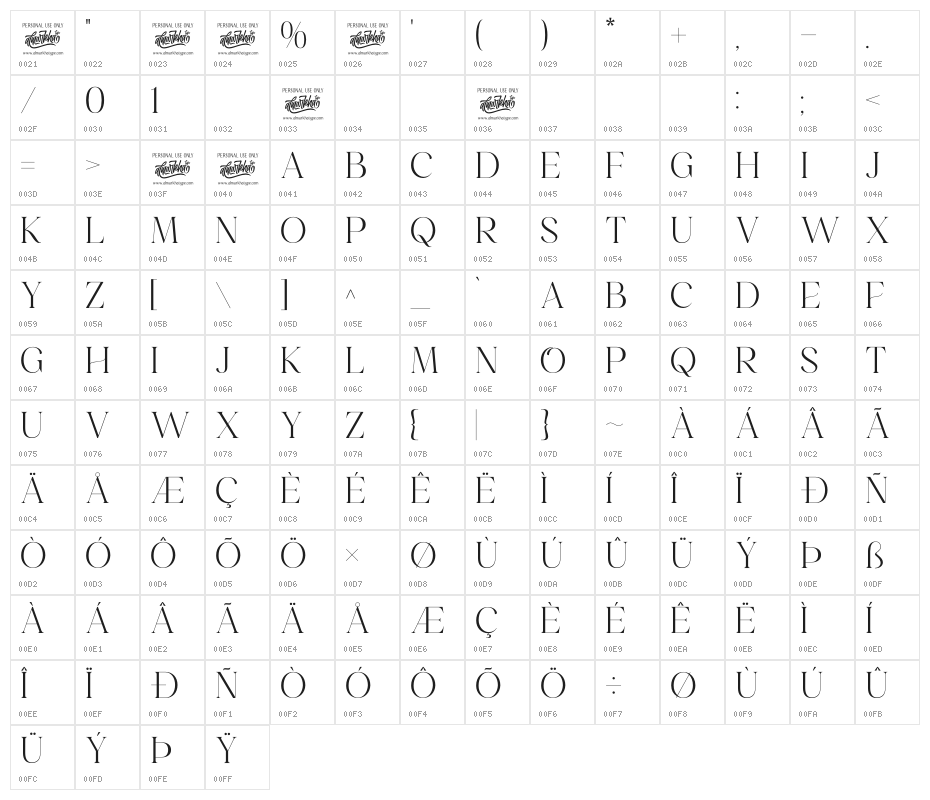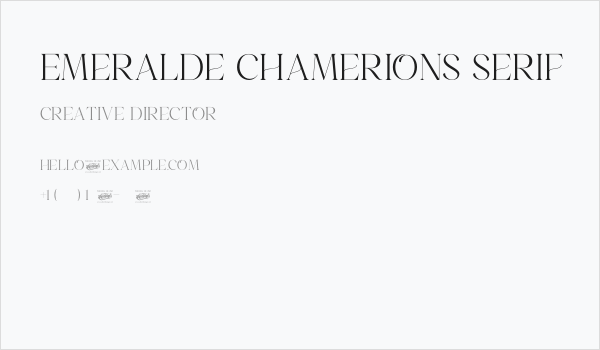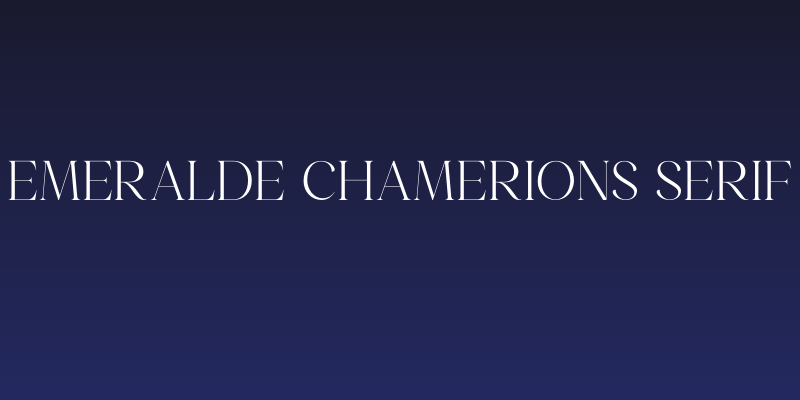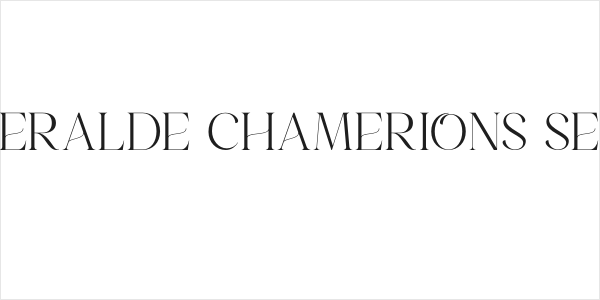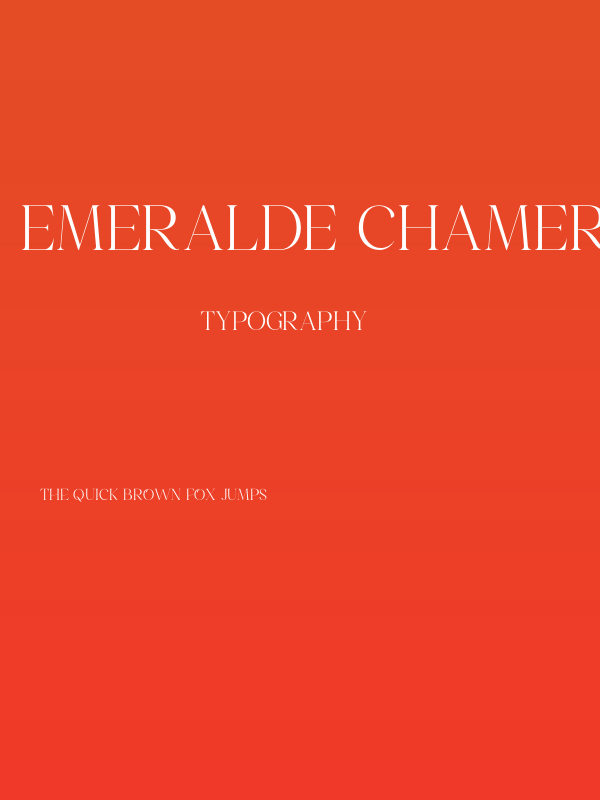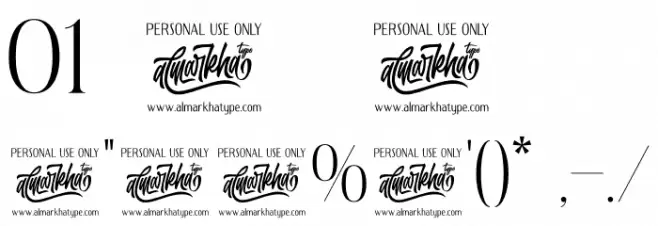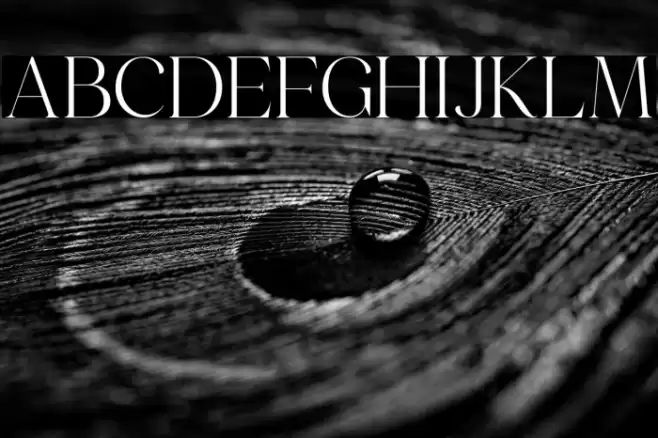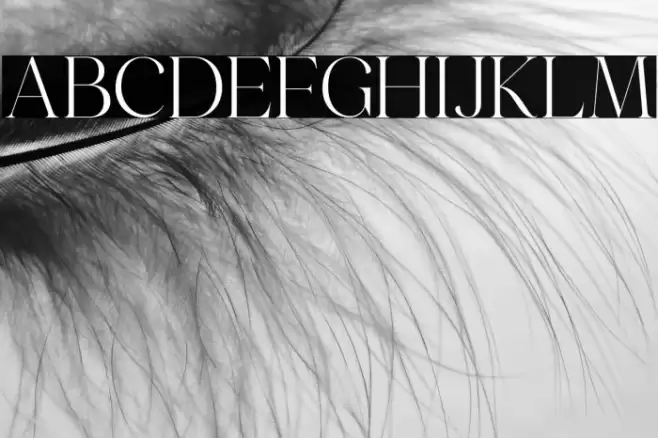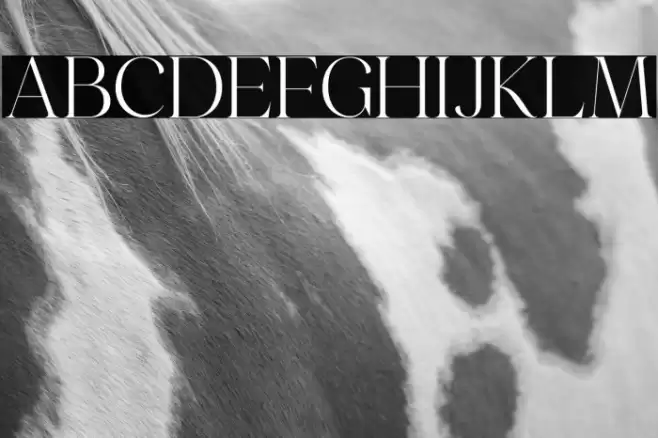
Emeralde Chamerions Serif Font
This font exhibits a refined and elegant serif style, characterized by its thin, elongated strokes and high contrast between thick and thin lines. The uppercase letters are tall and sophisticated, with a classic serif touch that adds a sense of tradition and formality. The lowercase letters maintain a consistent style, offering a harmonious blend of modern and classic elements. The numerals are sleek and align well with the overall aesthetic, while the special characters retain the font's elegant flair. This typeface is suitable for projects that require a touch of sophistication and class.
| Use Case | Headlines, Logos, Editorial design |
| Proposed Projects | Ideal for wedding invitations, luxury branding, editorial design, and high-end product packaging. |